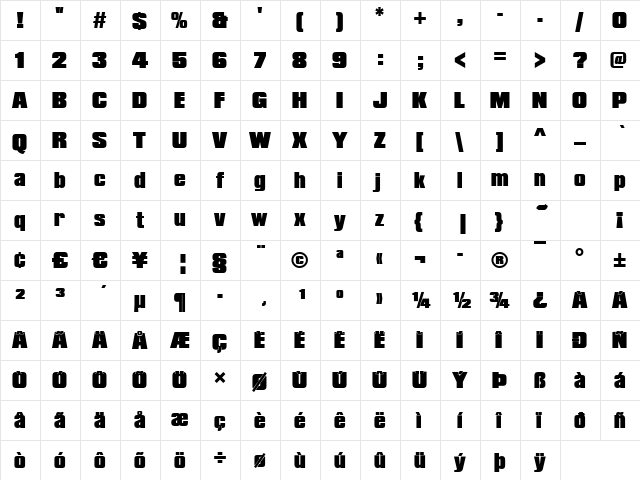
Compressed-Poster-Black Regular
Design Context for Compressed-Poster-Black Typeface
Compressed-Poster-Black is a composed and adaptable typeface that performs quietly and consistently across a wide range of design contexts.
Pro Tip: Use Compressed-Poster-Black in both headline and body roles to test its range before committing to a single application.